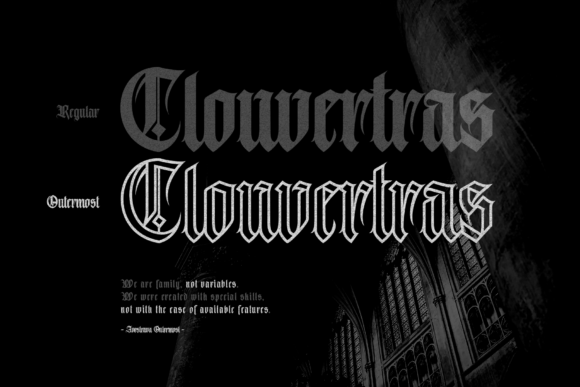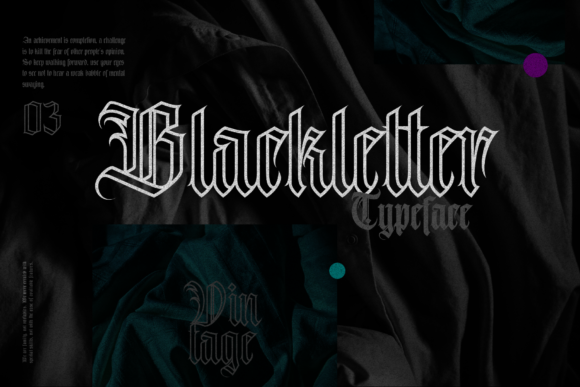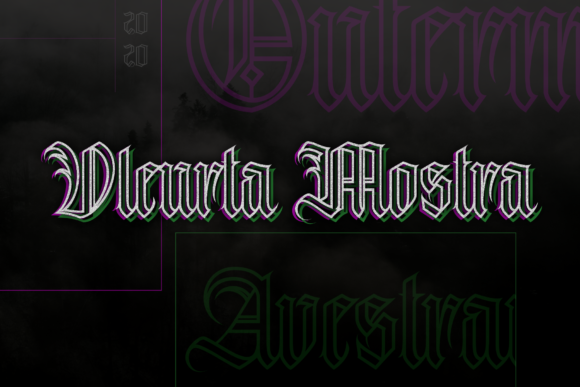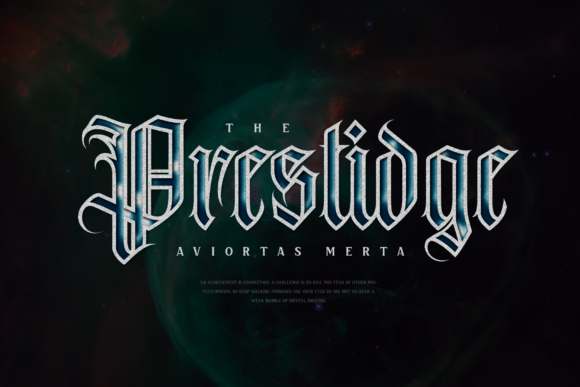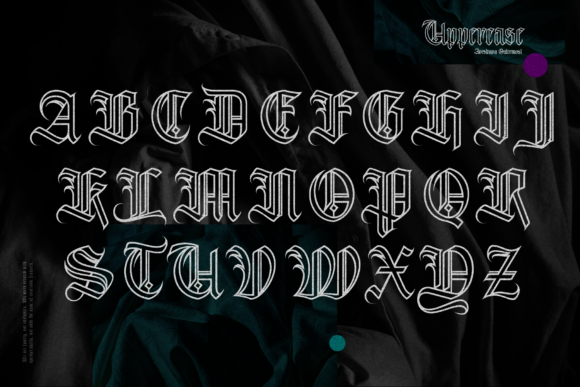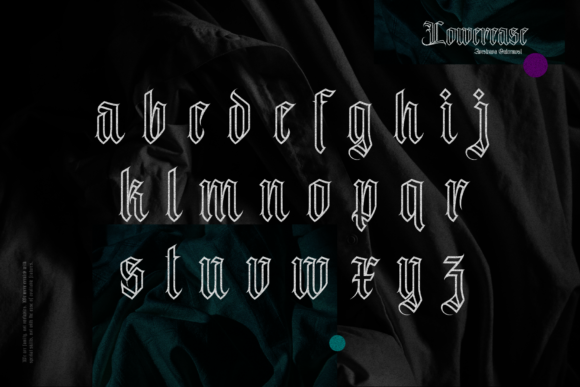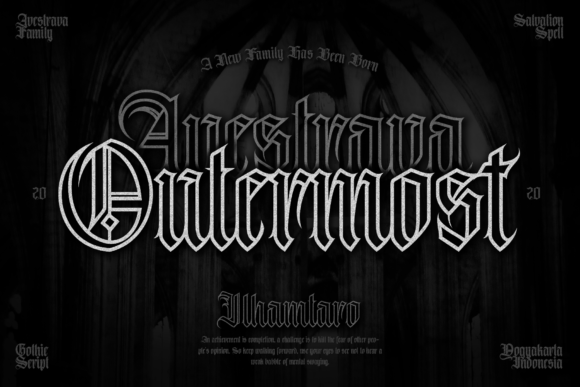
I still remember the frustration of working on a project, pouring my heart and soul into every detail, only to hit a roadblock when it came to choosing the right font. My client wanted something bold, something eye-catching, something that would make their brand stand out from the crowd. I scoured the internet, tried out font after font, but nothing seemed quite right. That was until I stumbled upon Avestrava Outermost, an assertive blackletter font with an outline style that blew me away.
A Personal Review: What I Love About Avestrava Outermost
So, what makes Avestrava Outermost so special? Here are a few things that I absolutely love about this font:
- ✨ PUA Encoding: This font is PUA encoded, which means you can access all of the amazing glyphs and ligatures with ease! No more tedious searching for the perfect character.
- ✅ Unique Style: The outline style of Avestrava Outermost gives it a distinctive look that’s sure to turn heads. It’s perfect for making a statement or adding a touch of drama to your design.
- 💯 High-Quality Design: The font is meticulously crafted, with clean lines and precise details that make it perfect for both digital and print applications.
Of course, no font is perfect, and Avestrava Outermost is no exception. Here are a few things to keep in mind:
- 🤔 Learning Curve: With so many glyphs and ligatures at your disposal, it can take some time to get familiar with the font and learn how to use it to its full potential.
- ⚠️ Legibility: As with any blackletter font, legibility can be a concern, especially at smaller sizes. Make sure to test the font in your design to ensure it works well for your specific needs.
Avestrava Outermost is more than just a font – it’s a work of art. The designer behind this masterpiece drew inspiration from traditional blackletter fonts, combined with modern twists and techniques. The result is a font that’s both elegant and edgy, perfect for designers who want to push the boundaries of creativity.
| What is PUA encoding? | PUA (Private Use Area) encoding allows for custom glyphs and ligatures to be accessed easily. This means you can use Avestrava Outermost’s unique features without having to manually insert special characters. |
| Is Avestrava Outermost suitable for body text? | While Avestrava Outermost is a beautiful font, it’s best suited for headlines or titles rather than body text. Its unique style and outline make it more attention-grabbing than easy to read in large blocks. |